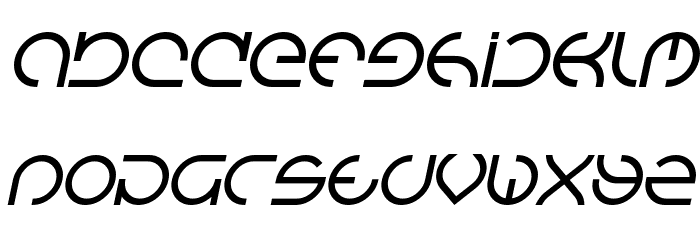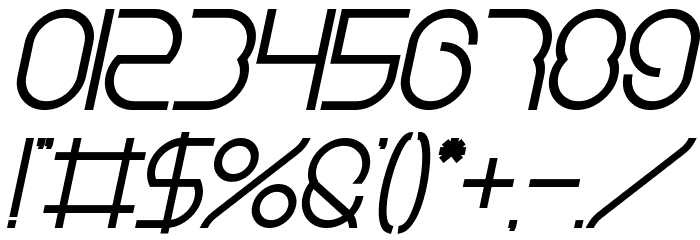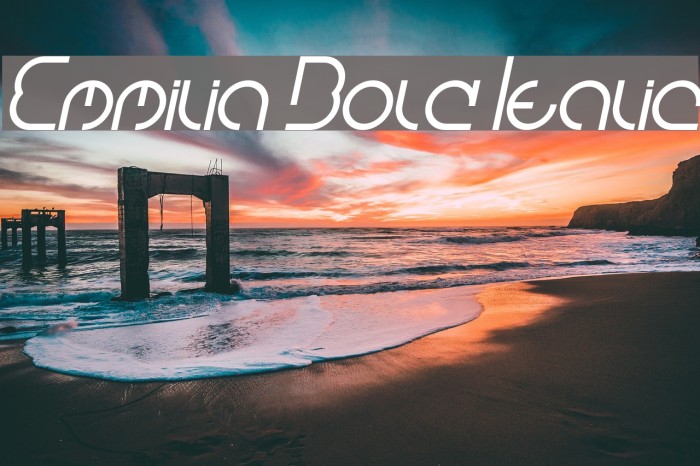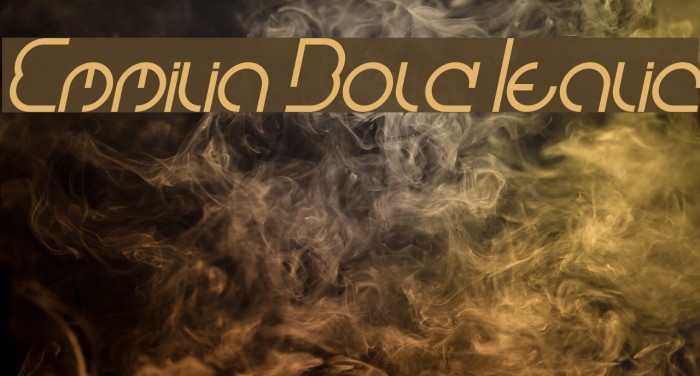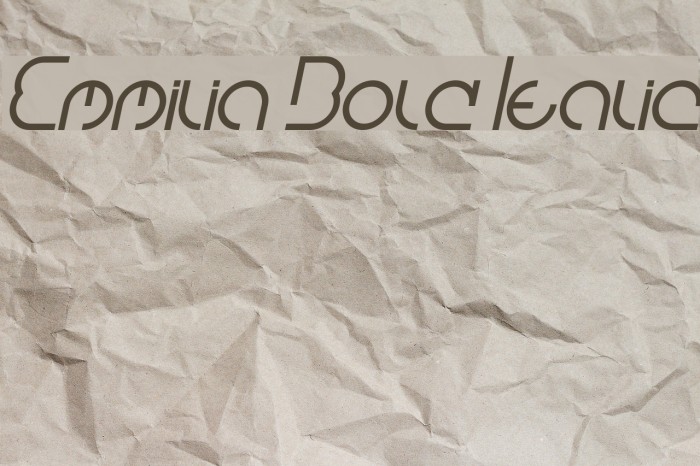
Emmilia Bold Italic Font
This font features a futuristic and sleek design with a distinct italic slant, giving it a dynamic and forward-moving appearance. The characters are crafted with a consistent stroke width, contributing to a clean and modern aesthetic. The uppercase letters are bold and assertive, while the lowercase letters maintain a cohesive style with unique curves and angles. Numbers and special characters are designed to match the overall theme, ensuring uniformity across all elements. The font's geometric nature and smooth lines make it suitable for contemporary design projects.
A futuristic, italicized font with bold, geometric characters.
- Proposed Projects: Ideal for technology branding, sci-fi posters, modern advertising, and innovative product packaging.
- Overall Style: Futuristic